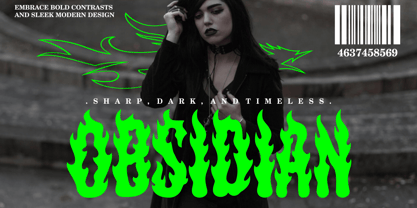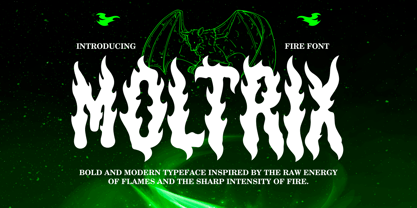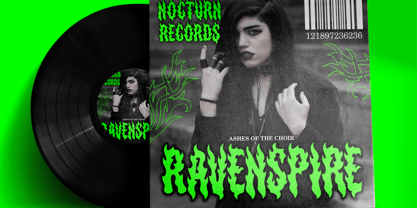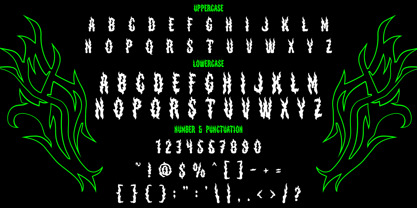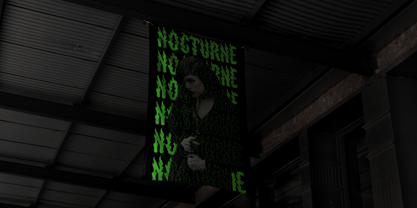
Moltrix
by Shanaf
The Moltrix Font Family was designed by Yesie Erma Yunita and published by Shanaf. Moltrix contains 1 styles. More about this family
Moltrix Fire Font is a bold display typeface that captures the raw essence of fire and flames. Each letter is crafted with sharp, fiery edges that create an intense visual impact. The strokes mimic blazing tongues of fire, giving the font a dynamic and untamed energy. The overall style is modern yet edgy, making it perfect for daring and fearless design projects.
This font is ideal for logos, branding, posters, and album covers that demand a bold statement. It works beautifully for horror titles, gaming projects, event promotions, and merchandise packaging. The strong layout style emphasizes contrast, ensuring your words never go unnoticed. Moltrix Fire Font blends energy, darkness, and creativity, making it a must-have for designers who want their text to radiate power.